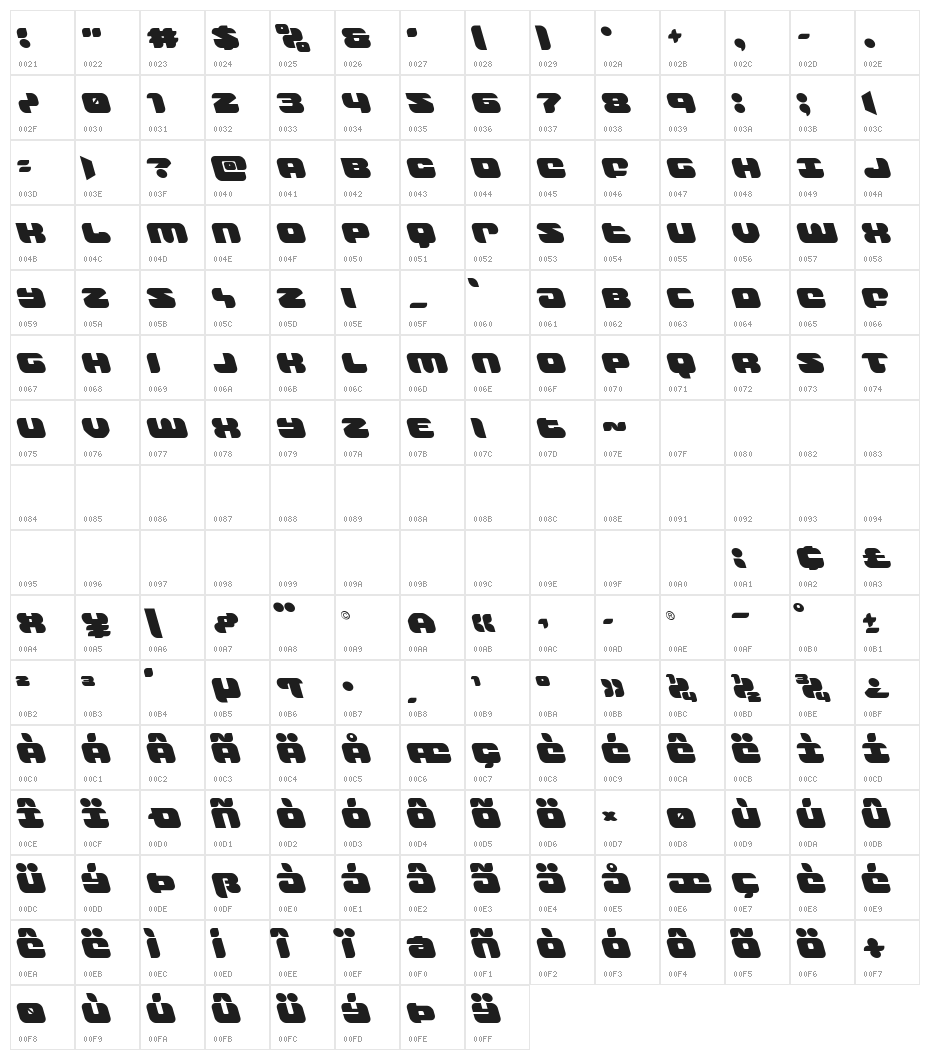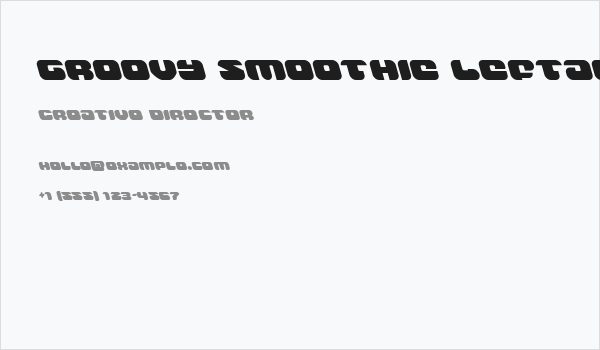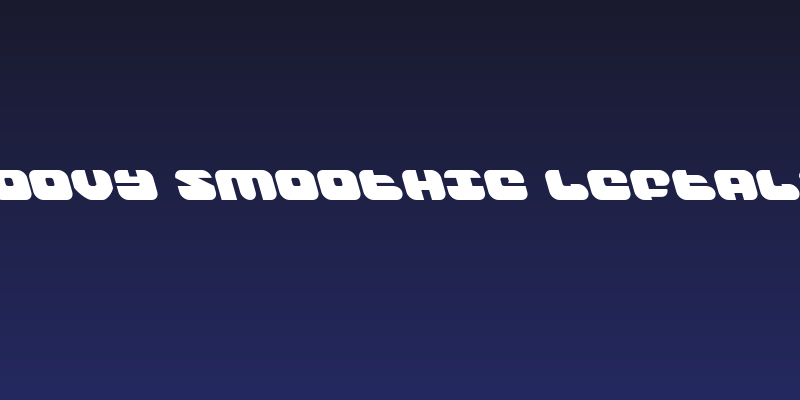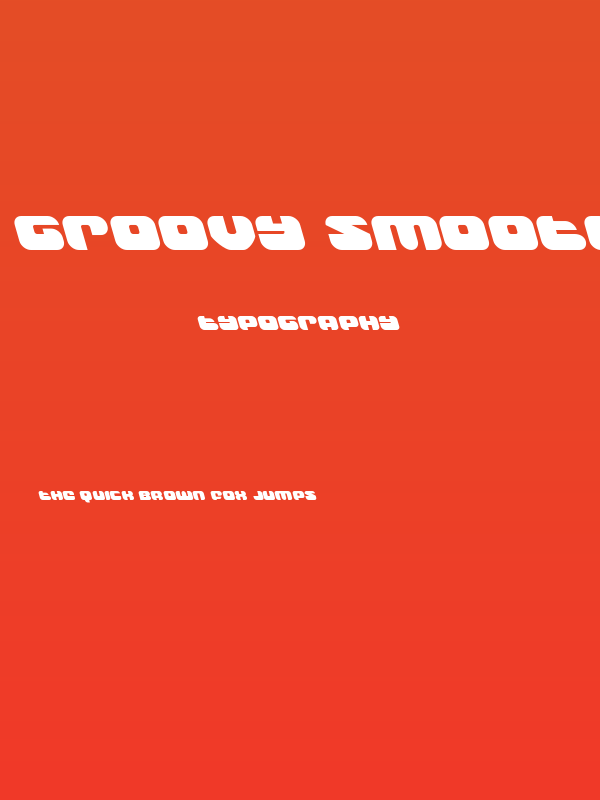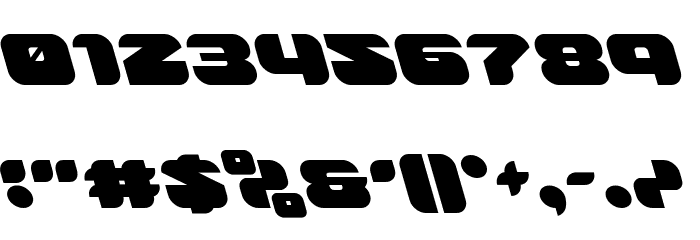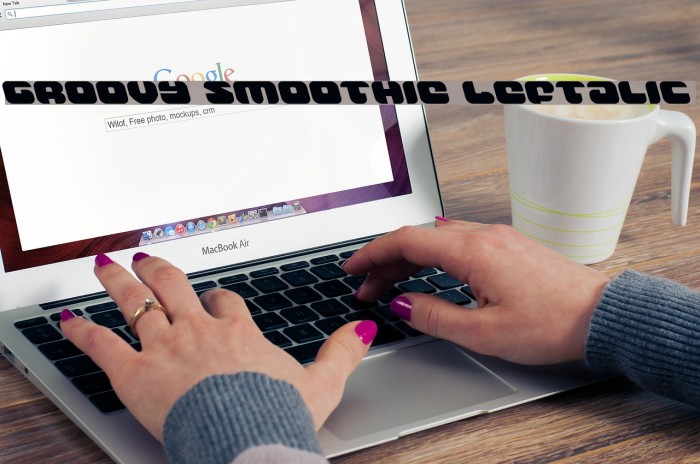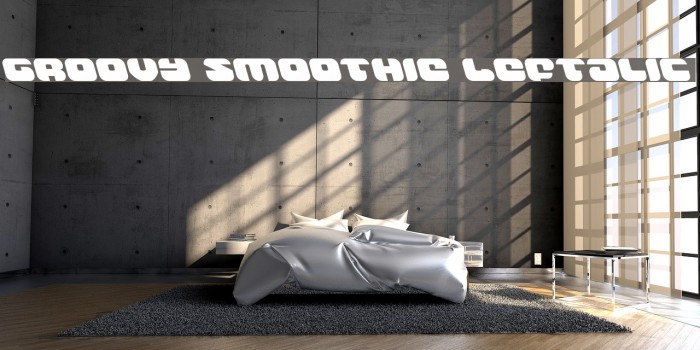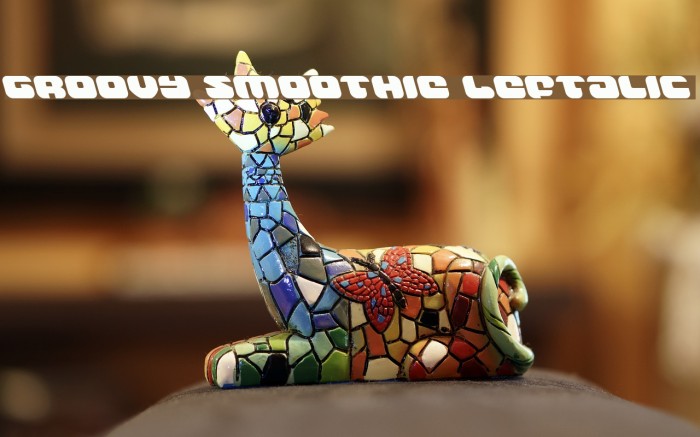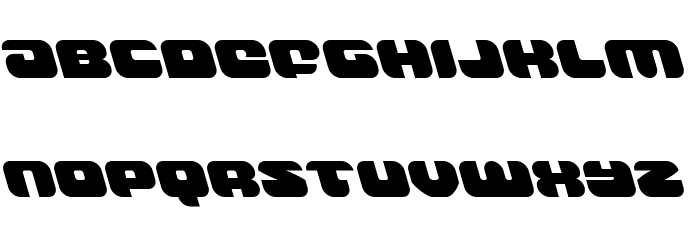
Groovy Smoothie Leftalic Font
This font features a bold, rounded style with a smooth, flowing appearance. The characters are slightly italicized, giving them a dynamic and playful look. The thick strokes and rounded edges create a sense of friendliness and approachability. The font maintains a consistent weight throughout, with a slight slant that adds to its unique charm. The spacing between characters is tight, which enhances the cohesive and unified appearance of the text. This style is particularly eye-catching and suitable for creative and informal designs.